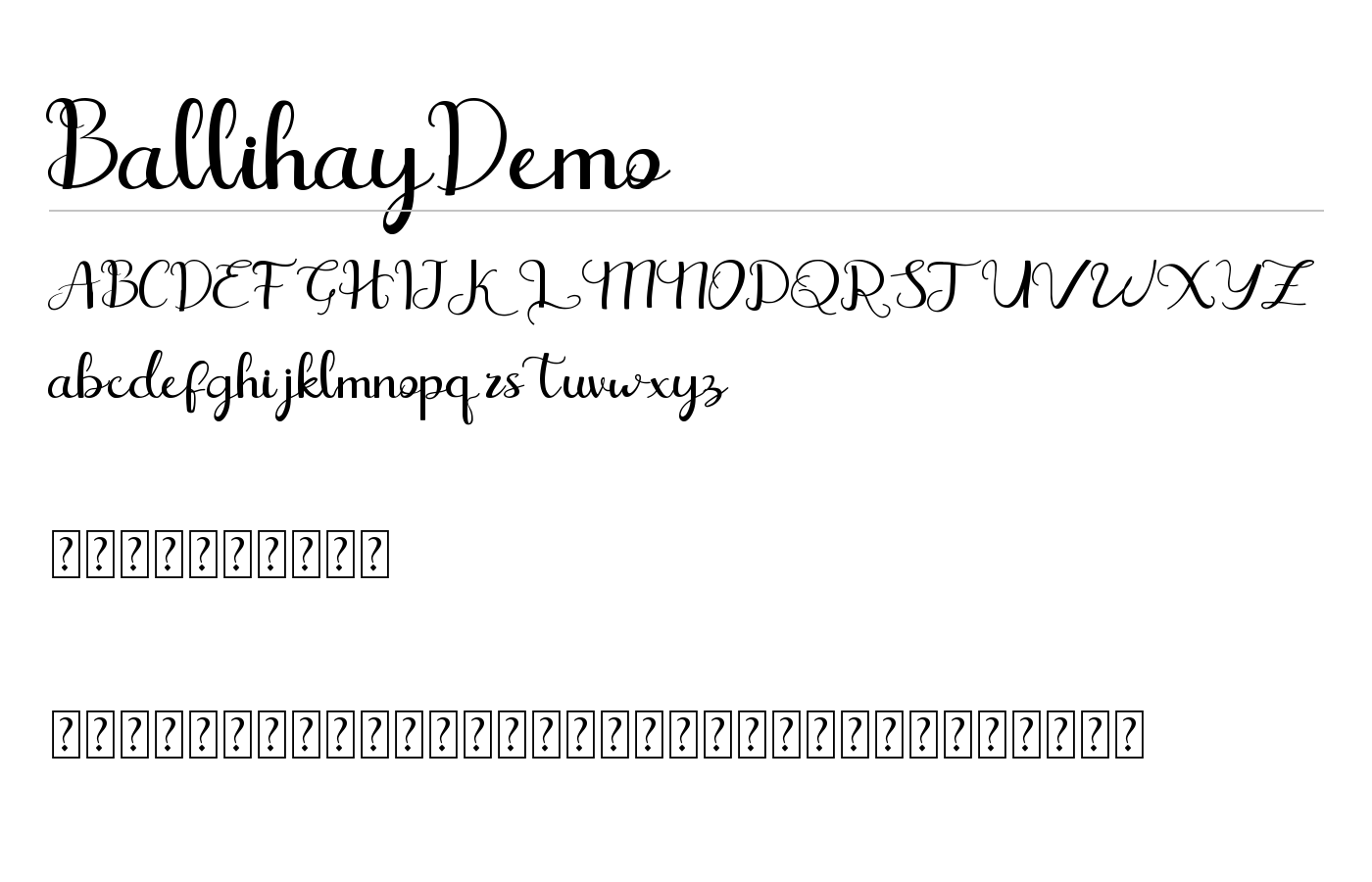
BallihayDemo is a delicate script font with elegant, flowing strokes that give it a graceful and handcrafted feel. Its slender letterforms and gentle curves create a light, airy impression perfect for invitations, feminine branding, and decorative headlines. This font works best in designs that seek a refined yet approachable style, adding charm and sophistication without overwhelming the reader.
BallihayDemo Font
About BallihayDemo Font